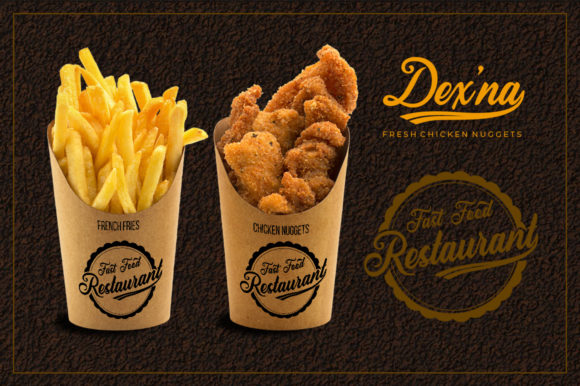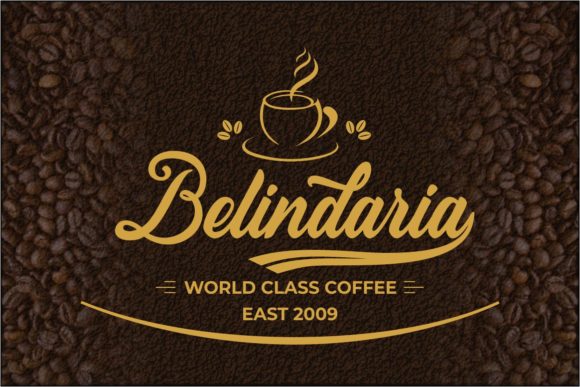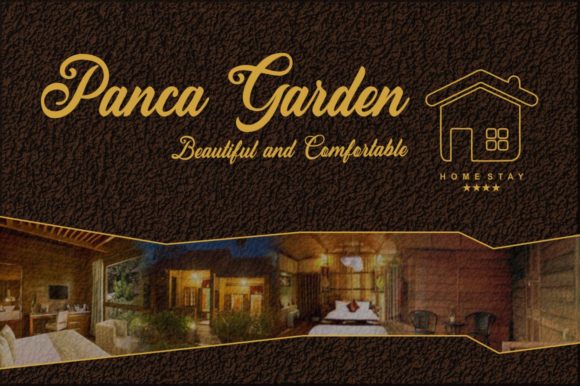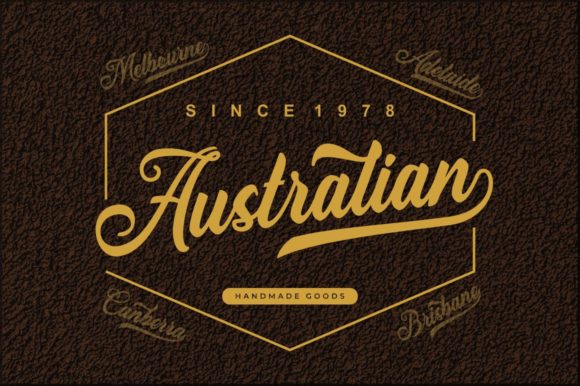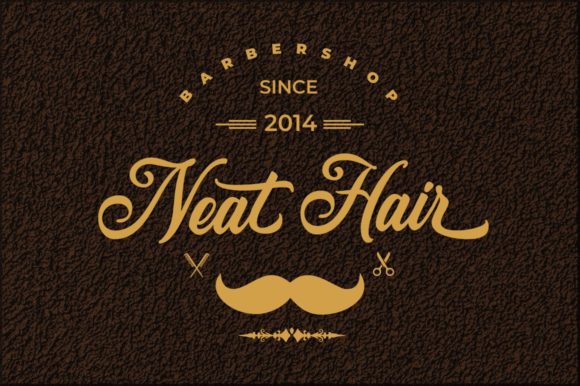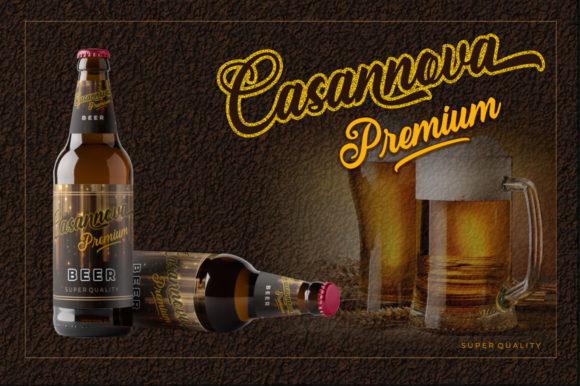
Introduction to Firstland Font
The Firstland is an amazing handwritten font.
It has a striking style and and includes lots of alternates that give you the possibility to create a design with charming imperfections, just like real handwriting It will work perfectly for fashion designs, e-commerce brands, trend blogs, wedding boutiques or any business that wants to appear upscale and chic.